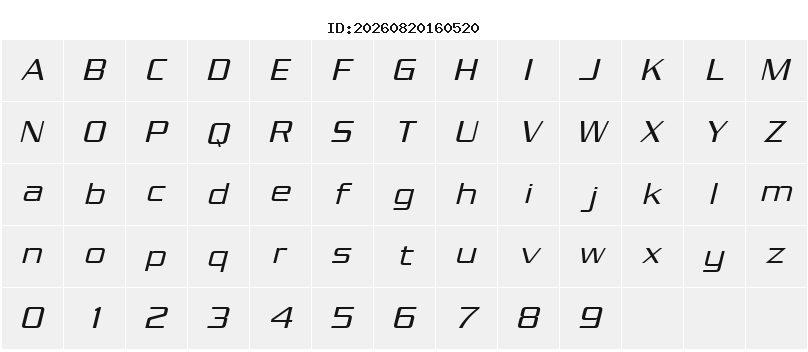
SerpentineSansICG Preview
• Font Name: SerpentineSansICG
• Font Style: LightOblique
• Font ID: Macromedia Fontographer 4.1 SerpentineSansICG LightOblique
• Full Font Name: SerpentineSansICG LightOblique
• PostScript Name: SerpentineSansICGLightOblique
About SerpentineSansICG.ttf
SerpentineSansICG.ttf is a modern, elegant sans-serif font designed for ultimate readability and visual harmony. Perfect for branding, headlines, web design, and print materials.